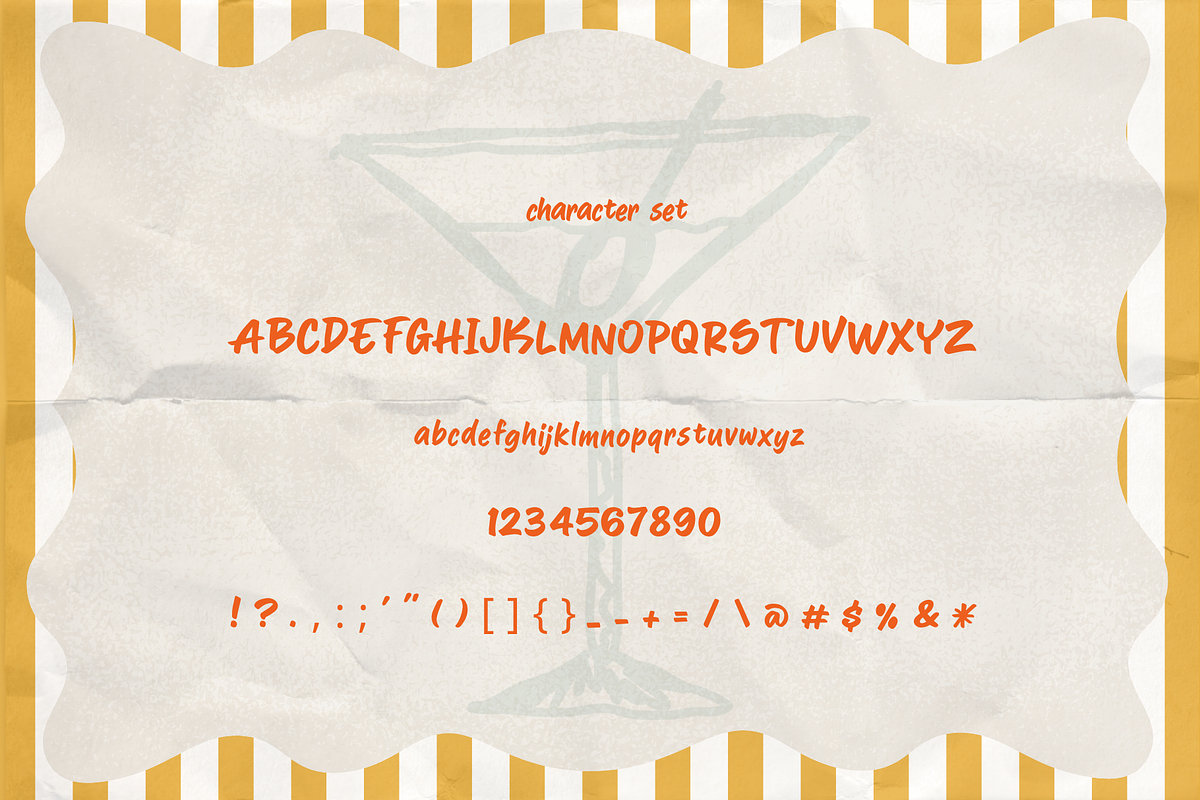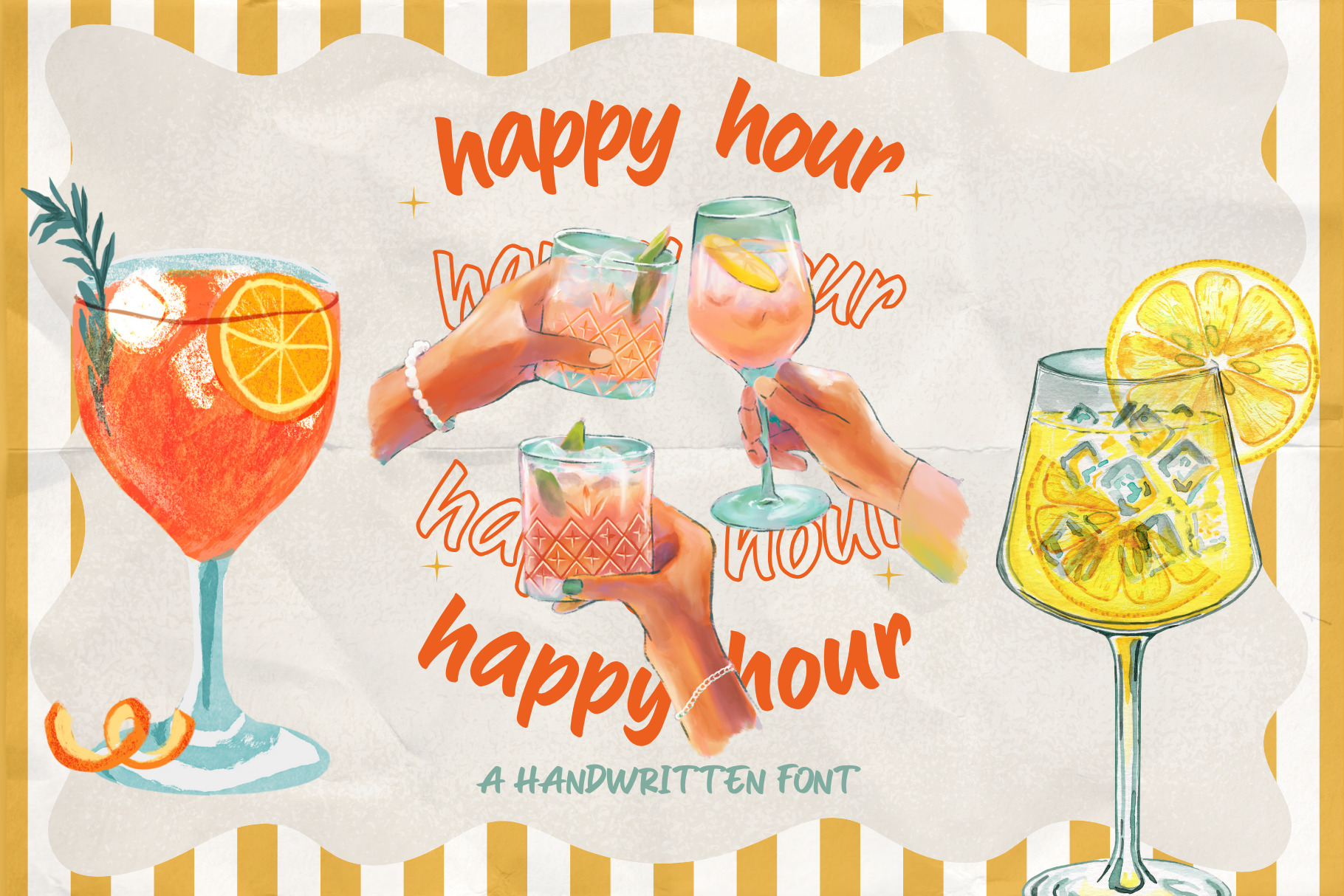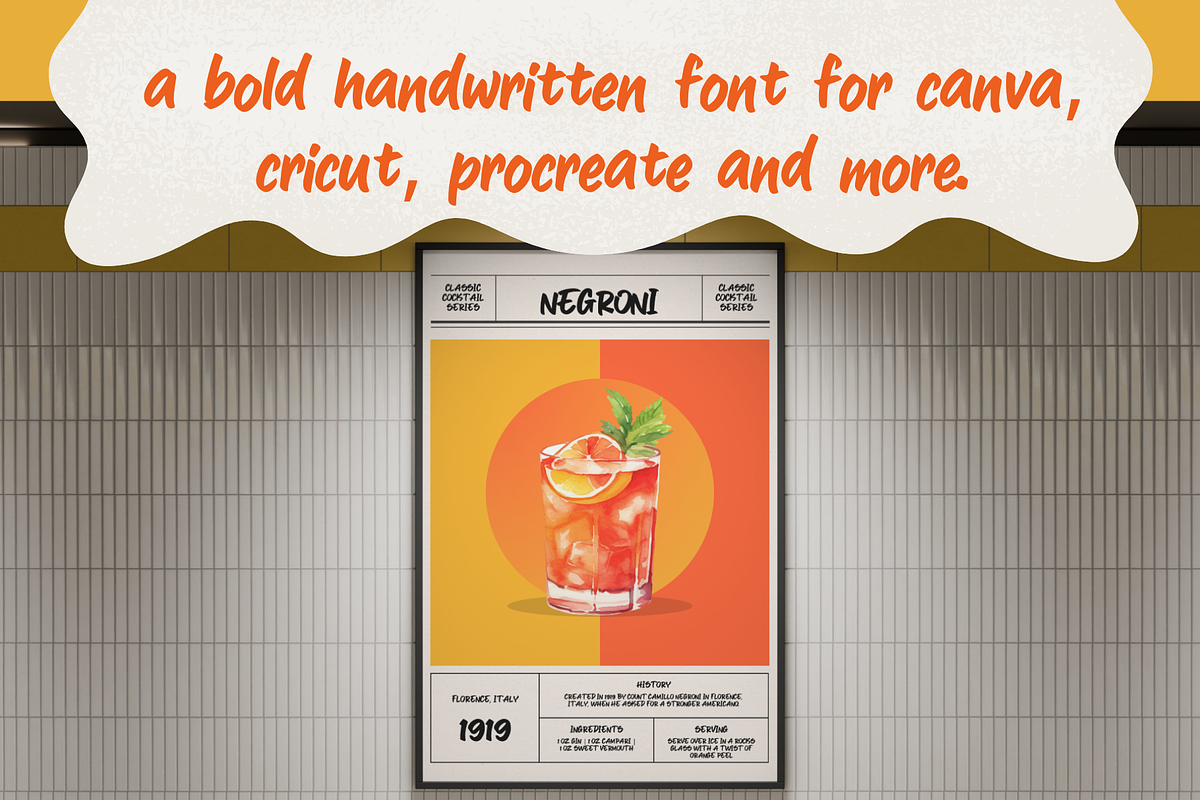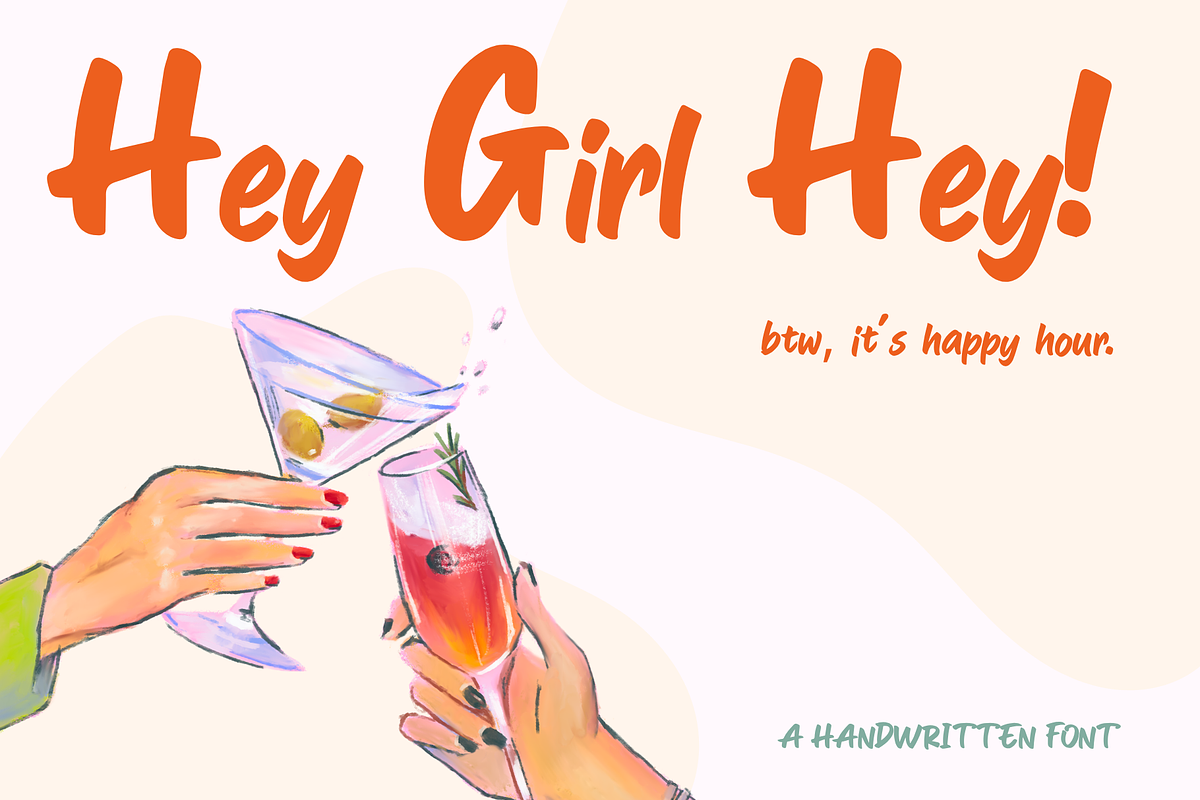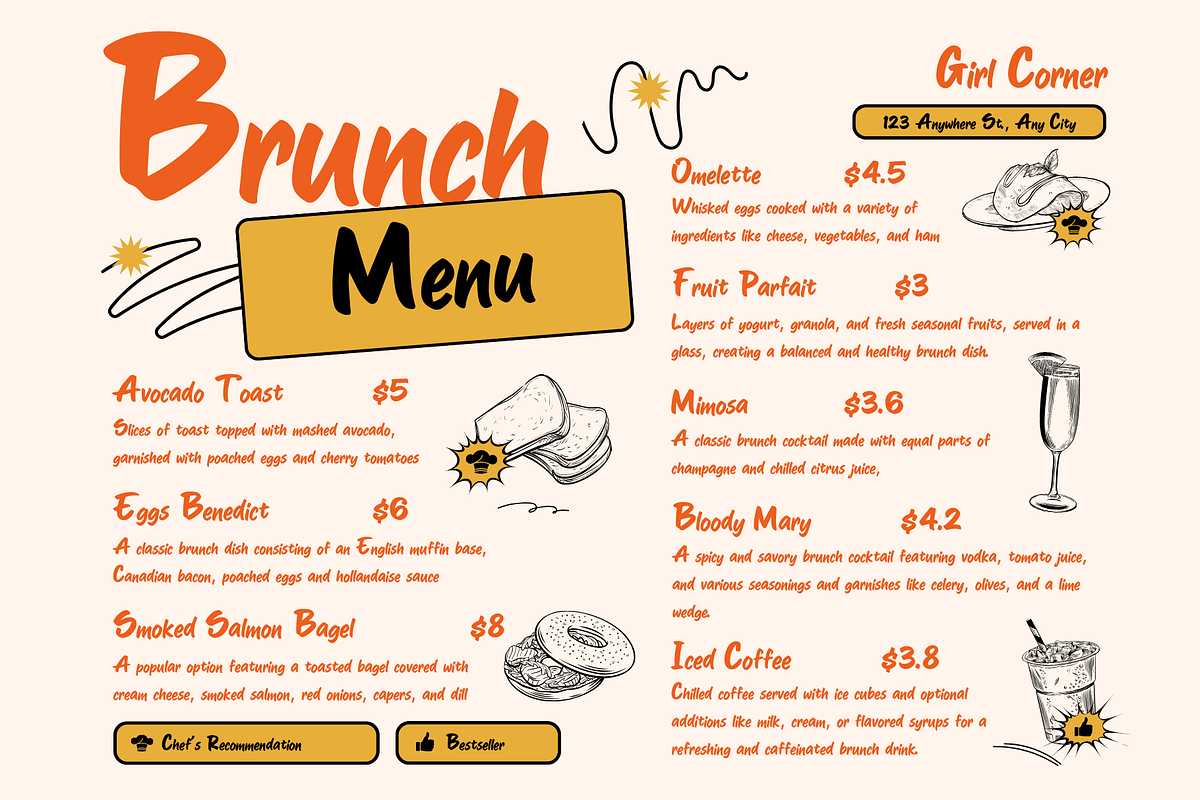
Happy Hour | Fun Handwritten Font
Bring a dose of fun to your designs with Happy Hour, a playful handwritten font with a girly, modern vibe.
Perfect for Cricut projects, Procreate lettering, and small business branding, this typeface combines casual charm with clean, smooth lines for a polished, professional look—whether you’re designing logos, stickers, or social media posts.
✨ Perfect for: • Girly branding & small business logos • Invitations & greeting cards • Cricut & Procreate projects • Stickers, t-shirts, mugs, and printables • Instagram posts & Pinterest graphics • Classroom projects, planners, and digital scrapbooks